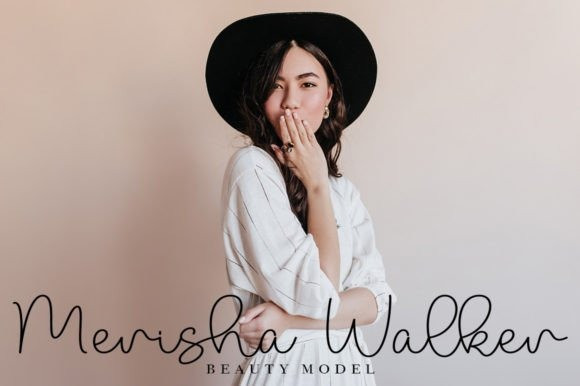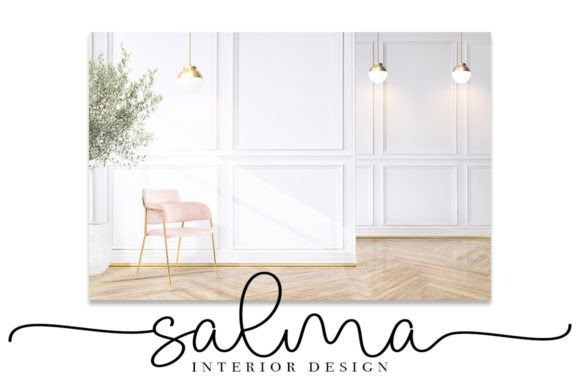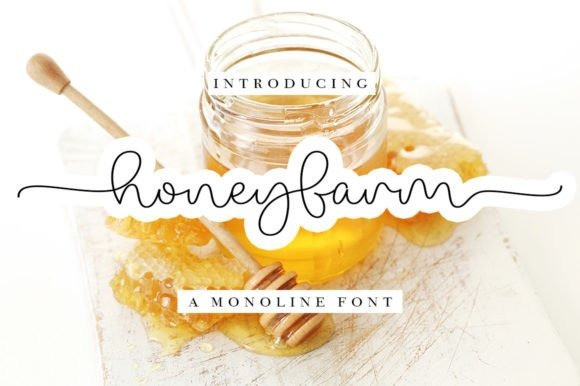
Honey Farm Font
Honey Farm Font is a sweet and friendly handwritten font. Cute and fun, it is ideal for writing wedding invitations, cards, or any other design that might need a fun touch!